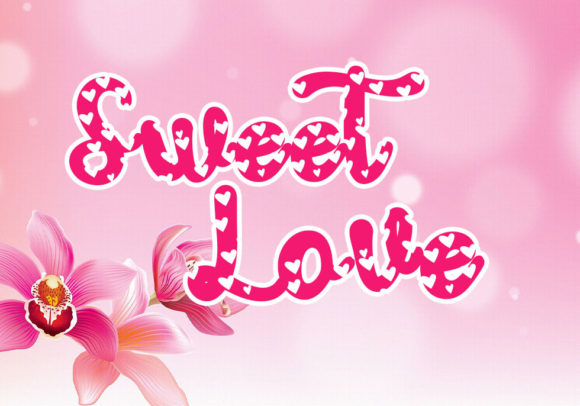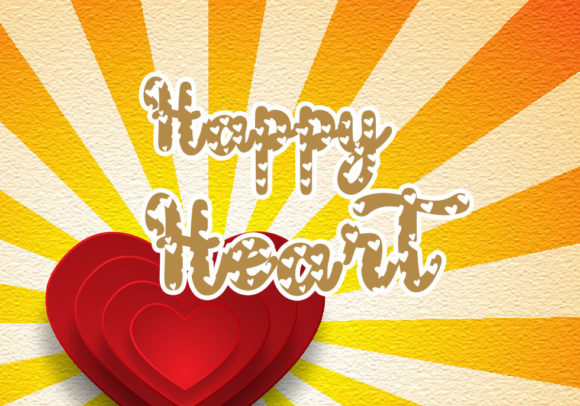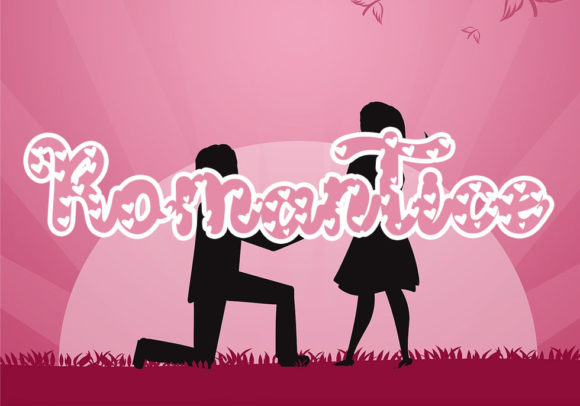
Sweet Love Font
Introducing “Sweet Love,” a cute and incredibly romantic script font that will add a touch of love and charm to your designs. This font is designed with tiny hearts integrated into each character, making it perfect for expressing your affection and creating a truly romantic atmosphere.
With its delicate and playful style, “Sweet Love” is the perfect choice for love letters, wedding invitations, or any design project that requires a romantic touch. The tiny hearts sprinkled throughout the characters add a whimsical and delightful element, capturing the essence of love and joy.
Imagine the impact of receiving a love letter or wedding invitation written in “Sweet Love.” The tiny hearts delicately adorn each letter, expressing the love and warmth within your words. It creates a heartfelt connection and adds a unique touch of romance to your message.
Not only is “Sweet Love” perfect for love letters and wedding invitations, but it can also be used for a variety of design projects. Whether you’re creating greeting cards, crafting social media posts, or designing posters for a romantic event, this font will bring an extra dose of love and charm to your designs.
The inclusion of tiny hearts within the characters of “Sweet Love” adds a delightful and whimsical touch. It showcases the attention to detail and the desire to create a unique and memorable design. The font becomes more than just letters on a page; it becomes a visual representation of love and affection.
To further enhance your creative options, “Sweet Love” offers a range of ligatures and alternates to add even more charm and customization to your text. The PUA encoding allows you to easily access these additional glyphs and create beautiful compositions that reflect your personal style.
Let “Sweet Love” be the font that conveys your affection, adds a romantic touch to your designs, and creates a lasting impression. Whether it’s a love letter, wedding invitation, or any other project that requires a touch of love, this font will inspire warmth and joy. Embrace the tiny hearts and let “Sweet Love” spark a sense of romance in your designs.